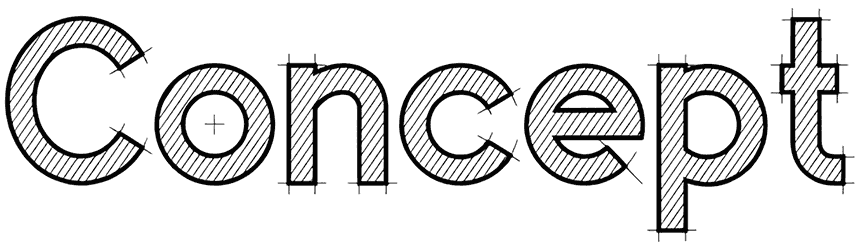
Concept Font
Overusing duplicate and repetitive fonts would be an unbelievably serious danger to the visibility and popularity of your graphic content, so it would be better to use a cross-hatched font like Concept that comes with a fresh striped style.
If you want to establish a sense of eccentricity, courage, or risk-taking in your artwork, including branding projects, invitations, covers, packaging, or logos, this blueprint font can be your practical assistant.